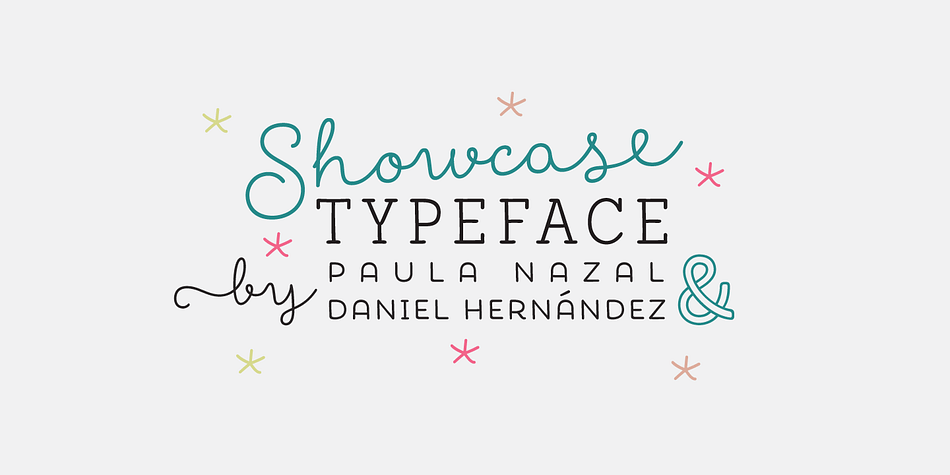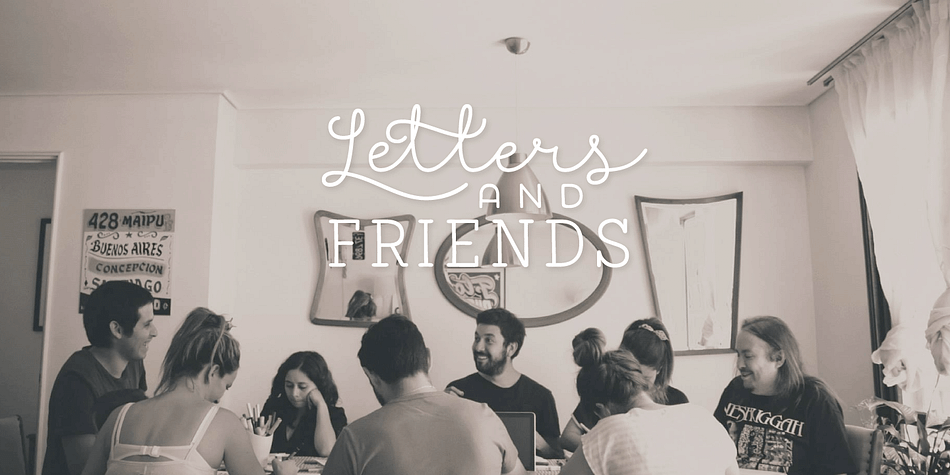
Showcase
Showcase is a multiple classification font family. This typeface has eight styles and was published by Latinotype.
Showcase, the new typeface of Daniel Hernandez and Paula Nazal is a handmade font consisting of a set of types that are composed of four styles, one script, one sans, a slab, sans mini and finally a set of ornaments and dingbats , all made to work together in the same language.
Showcase is very easy to use and allows great versatility, can be used both in a magazine as a restaurant, through windows, cafes, and really anyway you can think of!.
Showcase features an extra dingbat font.
Showcase is an eight font, multiple classification family by Latinotype.
Showcase, the new typeface of Daniel Hernandez and Paula Nazal is a handmade font consisting of a set of types that are composed of four styles, one script, one sans, a slab, sans mini and finally a set of ornaments and dingbats , all made to work together in the same language. It’s inspired by a pen that writes different typefaces and ornaments, and casually reaches into a harmonious family.
Showcase is very easy to use and allows great versatility, can be used both in a magazine as a restaurant, through windows, cafes, and really anyway you can think of!.